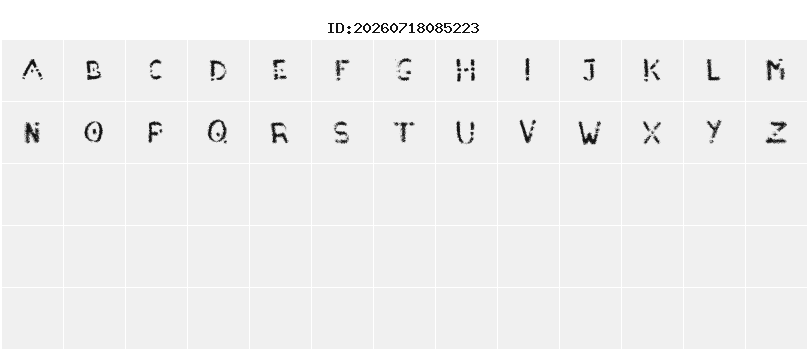
About Chalkpat.ttf
Chalkpat.ttf is a modern, elegant sans-serif font designed for ultimate readability and visual harmony. Perfect for branding, headlines, web design, and print materials.